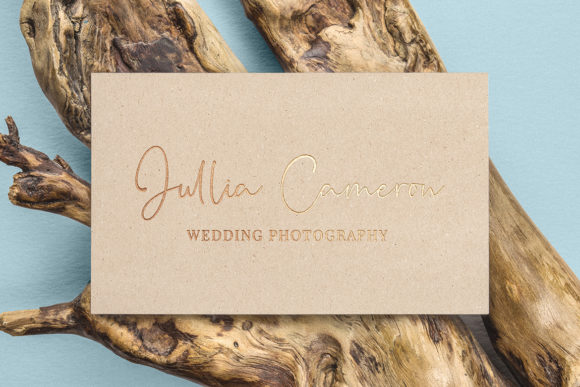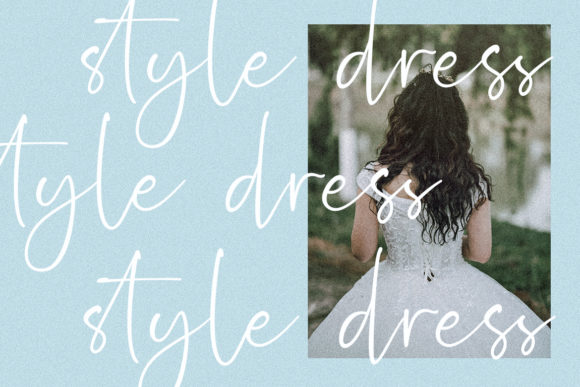
Rushtick Font
db-ku.com - Script & Handwritten -- Rushtick is a beautiful and light handwritten font with a unique feel. Get inspired by its elegant and smart feel!